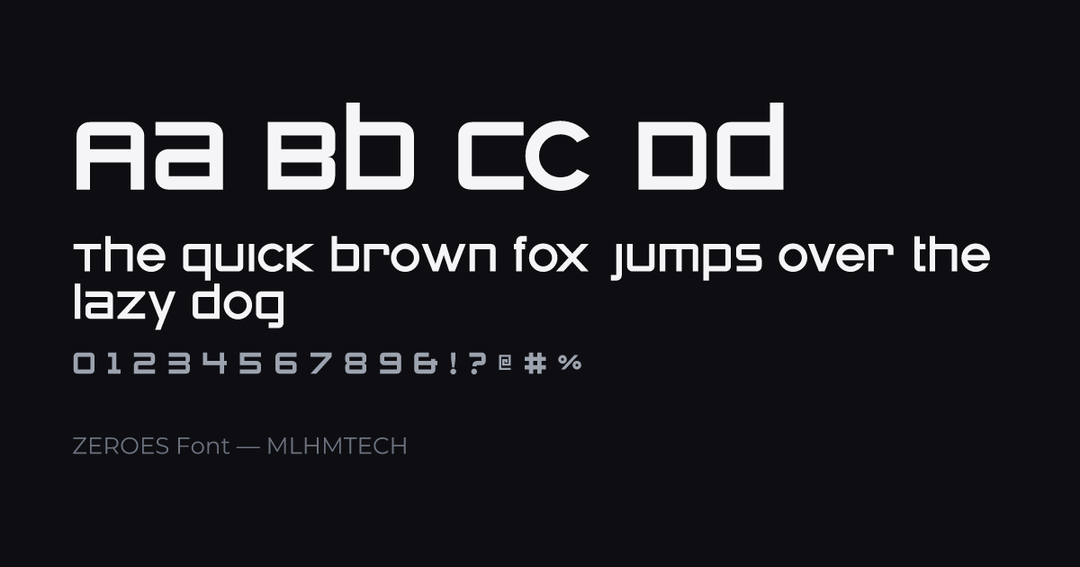
ZEROES Font
ZEROES is a bold, modern sans-serif font that adds a strong, contemporary feel to any design. Ideal for headlines, branding, and creative projects.
ZEROES is a striking display font characterized by its clean lines and geometric shapes. Its bold weight and modern aesthetic make it perfect for grabbing attention in headlines, posters, and branding materials. The font's versatility allows it to work well in both digital and print designs, from social media graphics to packaging.